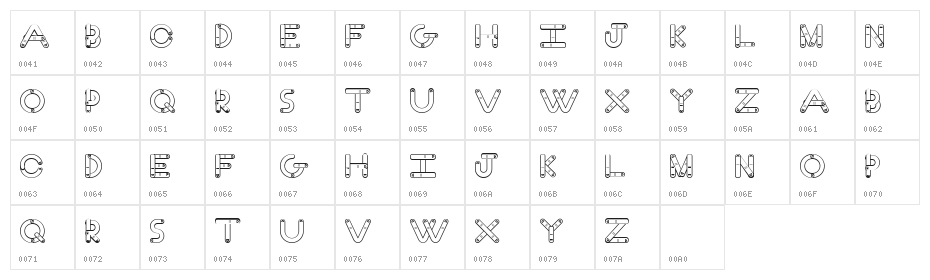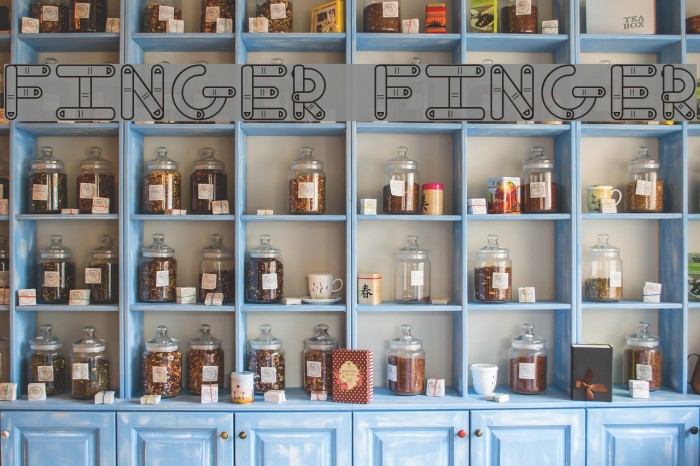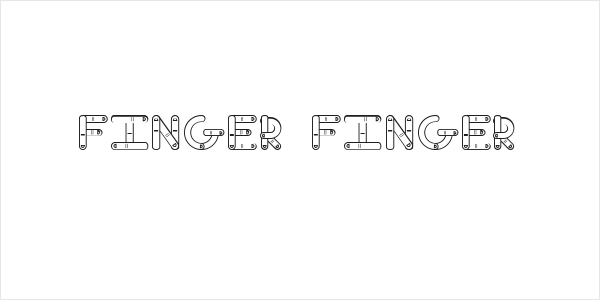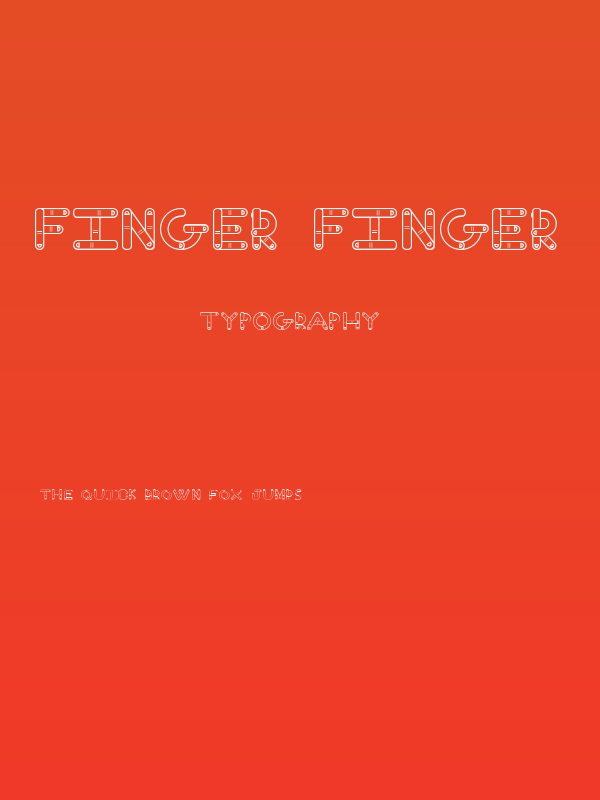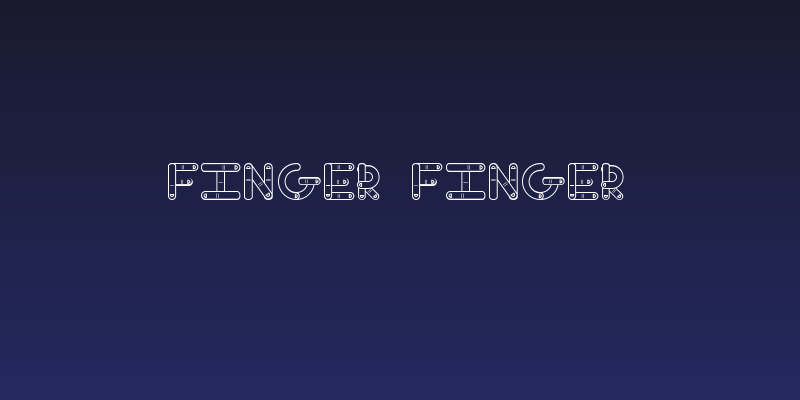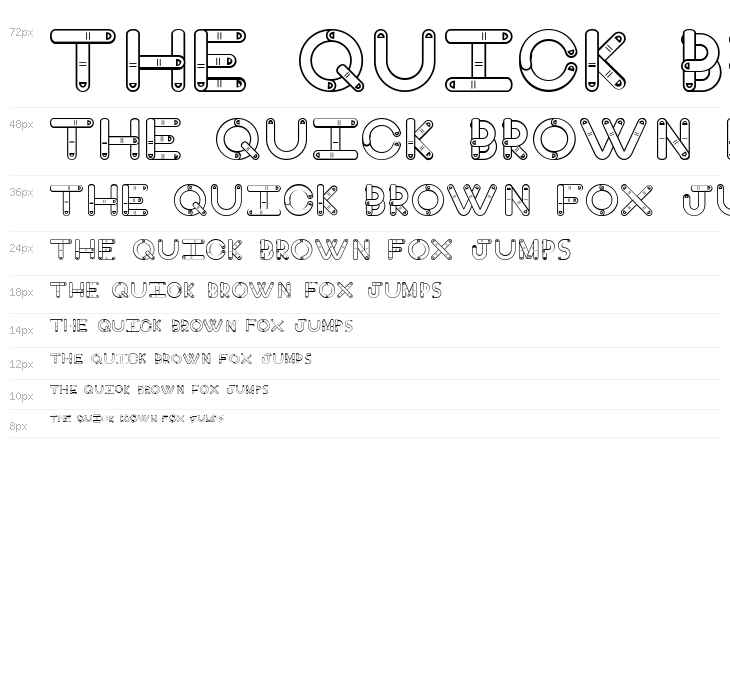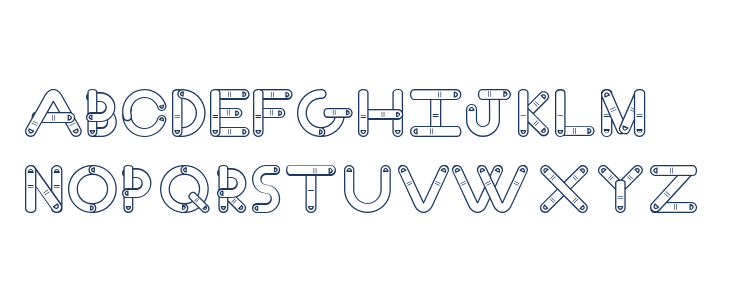
Finger Finger Font
Finger Finger Description
This font features a unique and playful design, resembling mechanical or robotic elements. Each character is constructed with a series of lines and circles, mimicking the appearance of interconnected parts or joints. The overall look is reminiscent of a blueprint or technical drawing, giving it a distinct industrial feel. The uppercase letters are bold and structured, with consistent line thickness throughout. The absence of lowercase letters and numbers suggests a focus on decorative or headline use. The font's style is both modern and whimsical, making it suitable for creative projects that require a touch of innovation and fun.